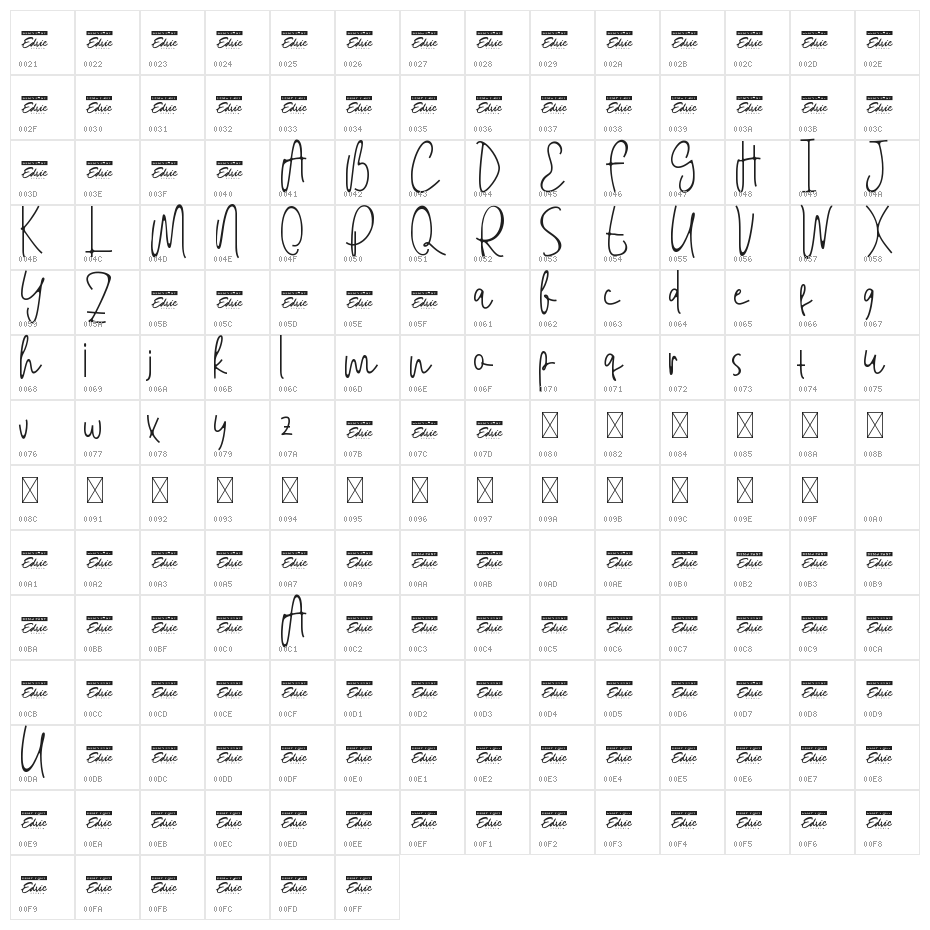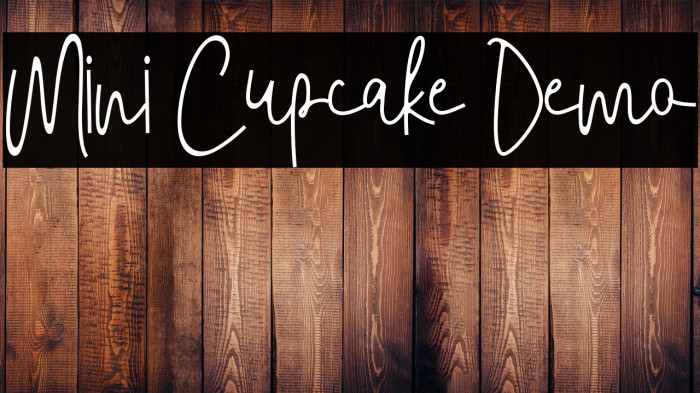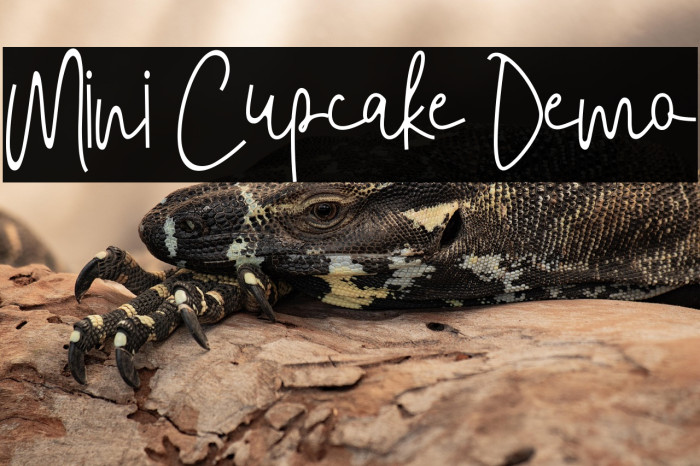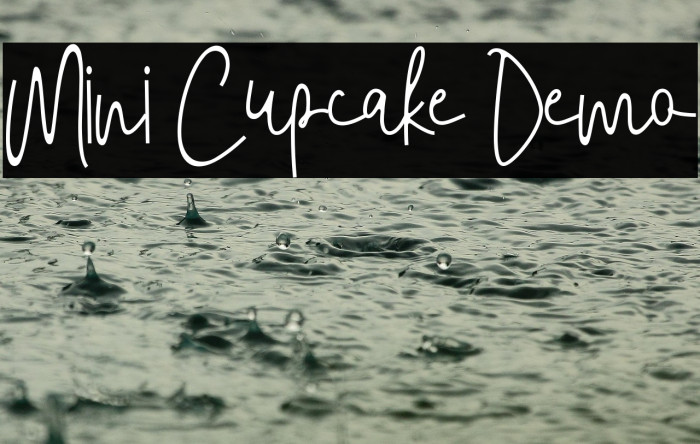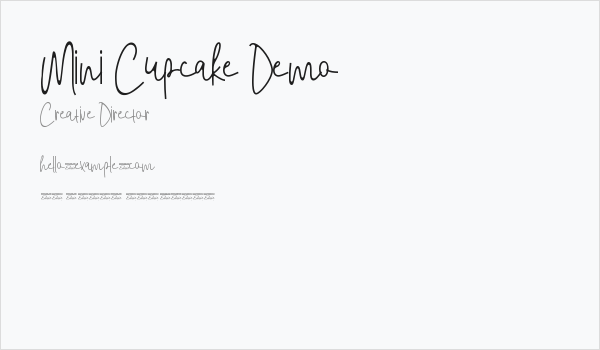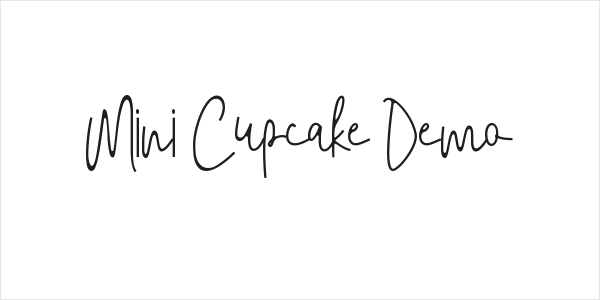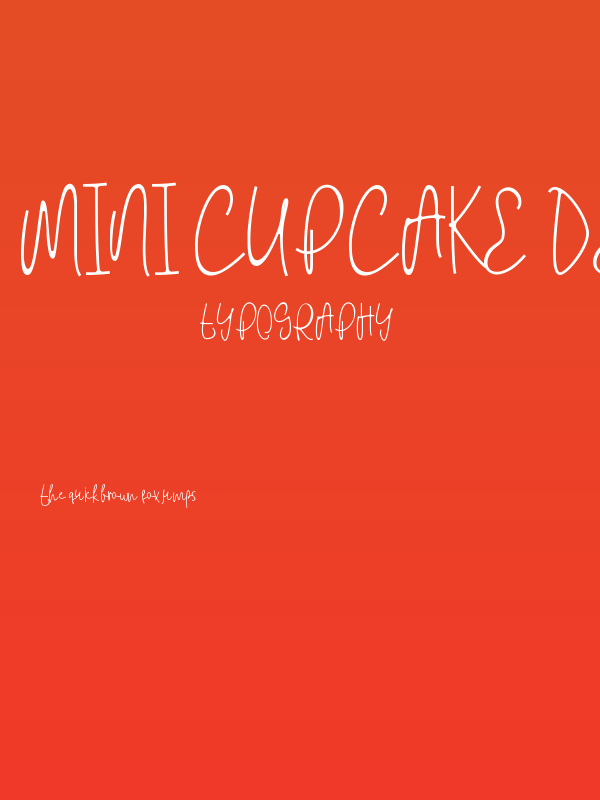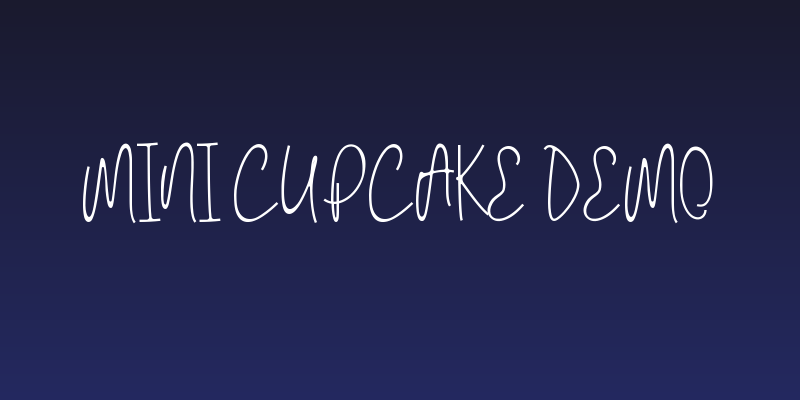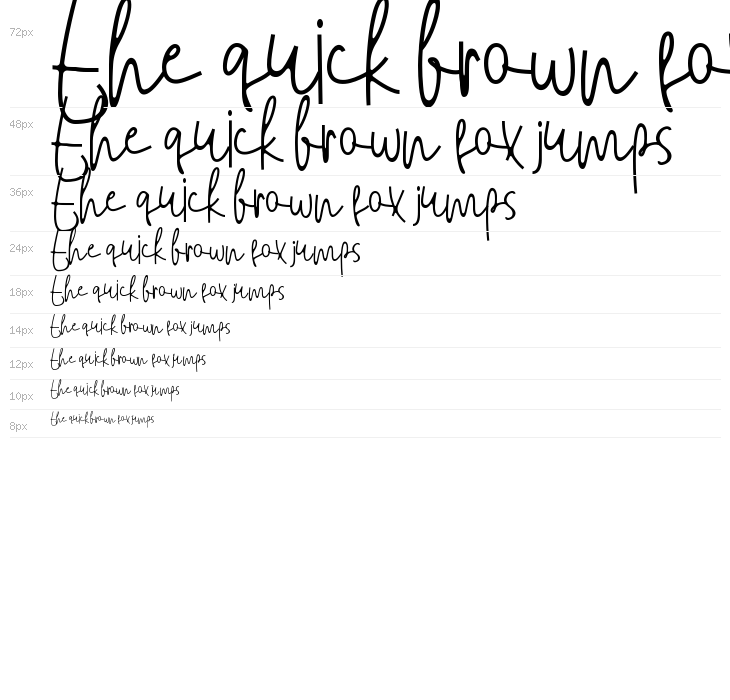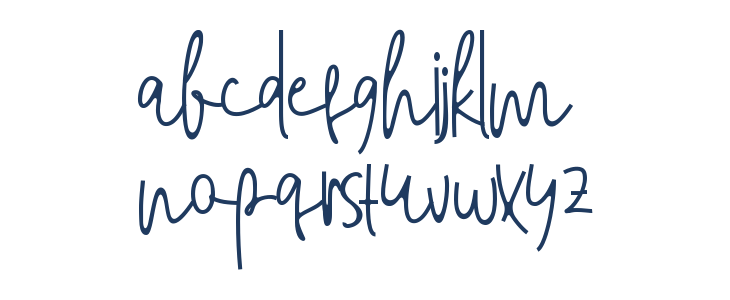
Mini Cupcake Demo Font
Mini Cupcake Demo Description
This font features a playful and whimsical handwritten style, characterized by its flowing, cursive-like letters. The uppercase letters have a tall, narrow appearance with a slight slant, giving them a dynamic and lively feel. The lowercase letters are more rounded and connected, enhancing the casual and friendly vibe of the font. The strokes vary in thickness, adding an organic touch to the overall design. This font is perfect for projects that require a personal and approachable aesthetic, such as invitations, greeting cards, or playful branding materials.
| Use Case | Invitations, Greeting cards, Playful branding |
| Proposed Projects | Ideal for invitations, greeting cards, playful branding, and personal projects. |